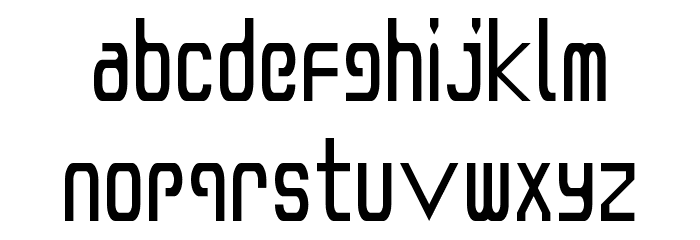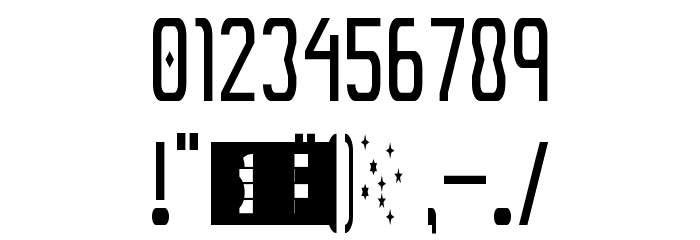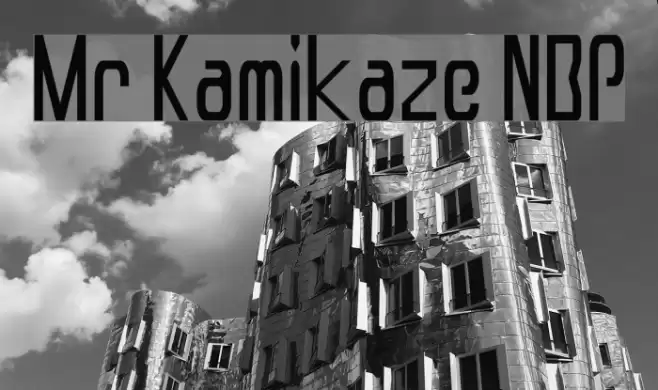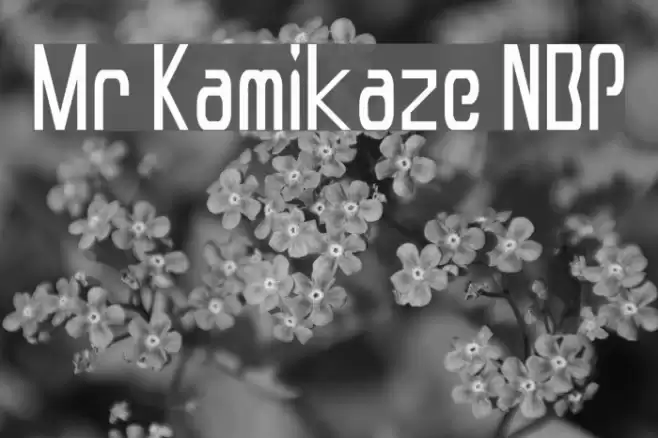
Mr Kamikaze NBP Font
This font features a bold, geometric design with a futuristic flair. The uppercase letters are tall and narrow, with sharp angles and a consistent stroke width that gives them a modern, technical appearance. The lowercase letters maintain this geometric style, with unique character shapes that add a distinctive touch. Numbers are similarly styled, ensuring uniformity across the typeface. Special characters are creatively designed, fitting seamlessly with the overall aesthetic. This font's clean lines and structured form make it ideal for projects that require a contemporary and edgy look.
A bold, geometric font with a futuristic and technical design.
- Proposed Projects: Ideal for technology branding, sci-fi themed projects, video game interfaces, and modern poster designs.